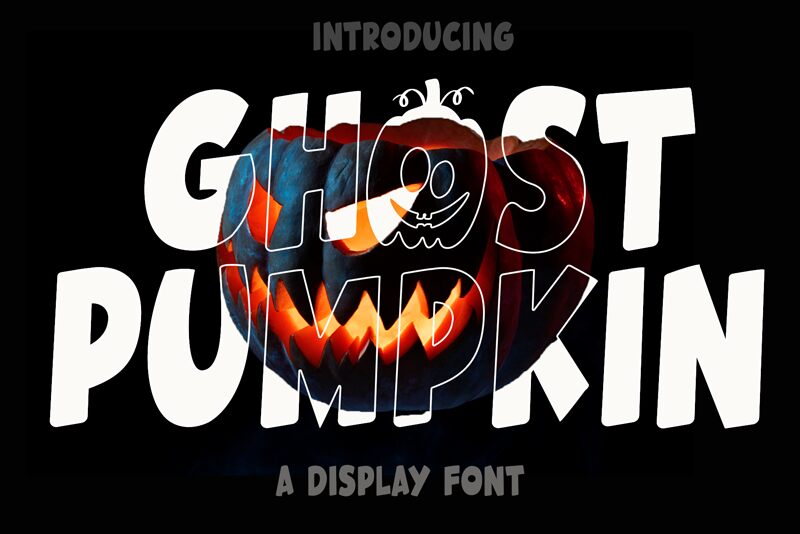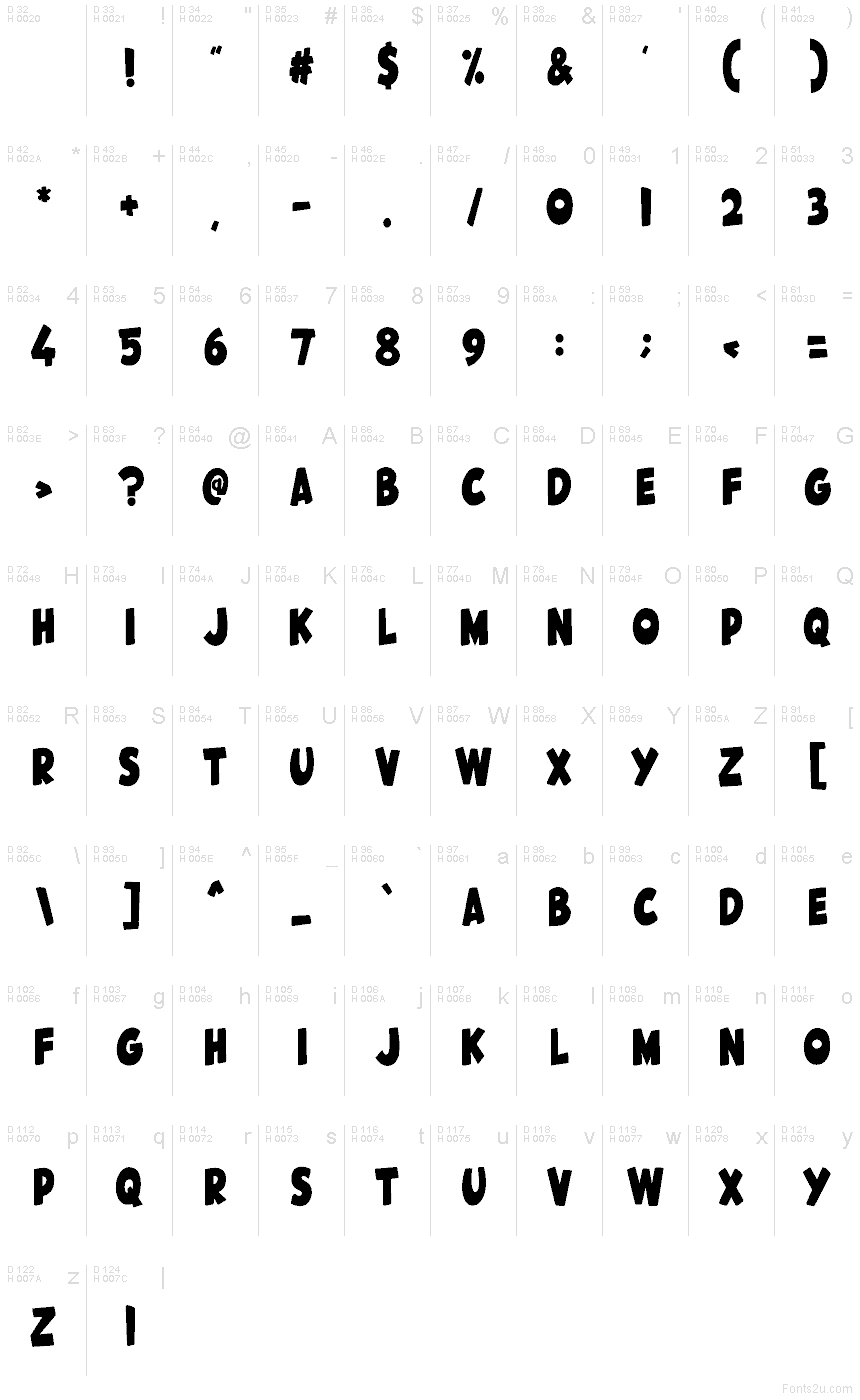
Ghost Pumpkin
Ghost Pumpkin font by Creatype Designer is a free bold Halloween display font. Chunky, lopsided letters feel hand‑carved—like fresh cuts in a pumpkin—with soft, gouged counters and a slightly wobbly rhythm that reads playful before it turns spooky. The inky, irregular edges give headlines a warm, campfire glow while still punching hard at a glance.
Using Ghost Pumpkin, your seasonal posters, trick‑or‑treat bags, haunted house signage, party invites, social posts, and kids’ crafts all get that friendly-fright vibe without losing legibility. Its tall, rounded forms stack well and hold texture at big sizes; give it a touch of extra tracking to let the shapes breathe. Pair this free font with a clean, narrow sans for body copy to keep the spotlight on the grinning display.